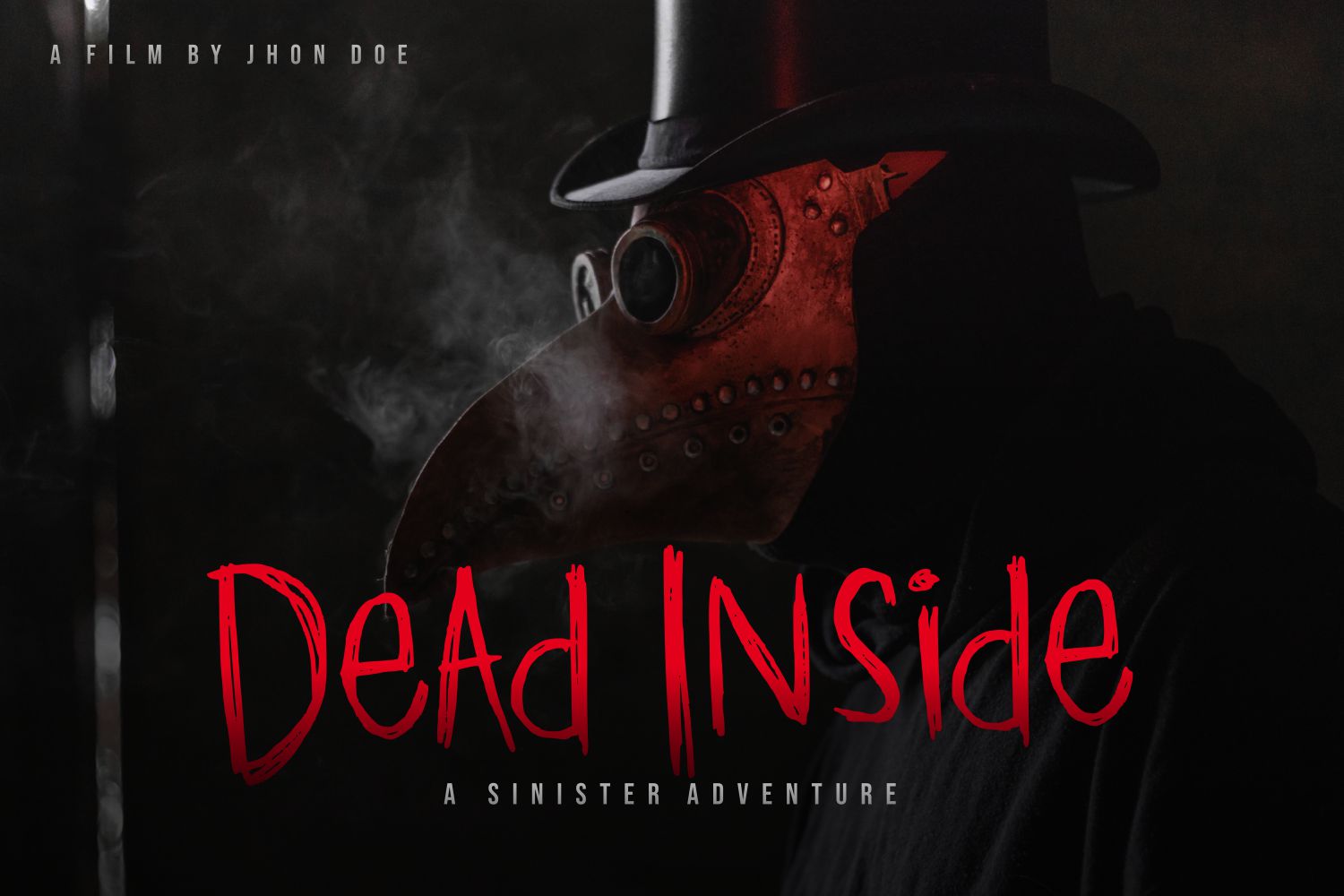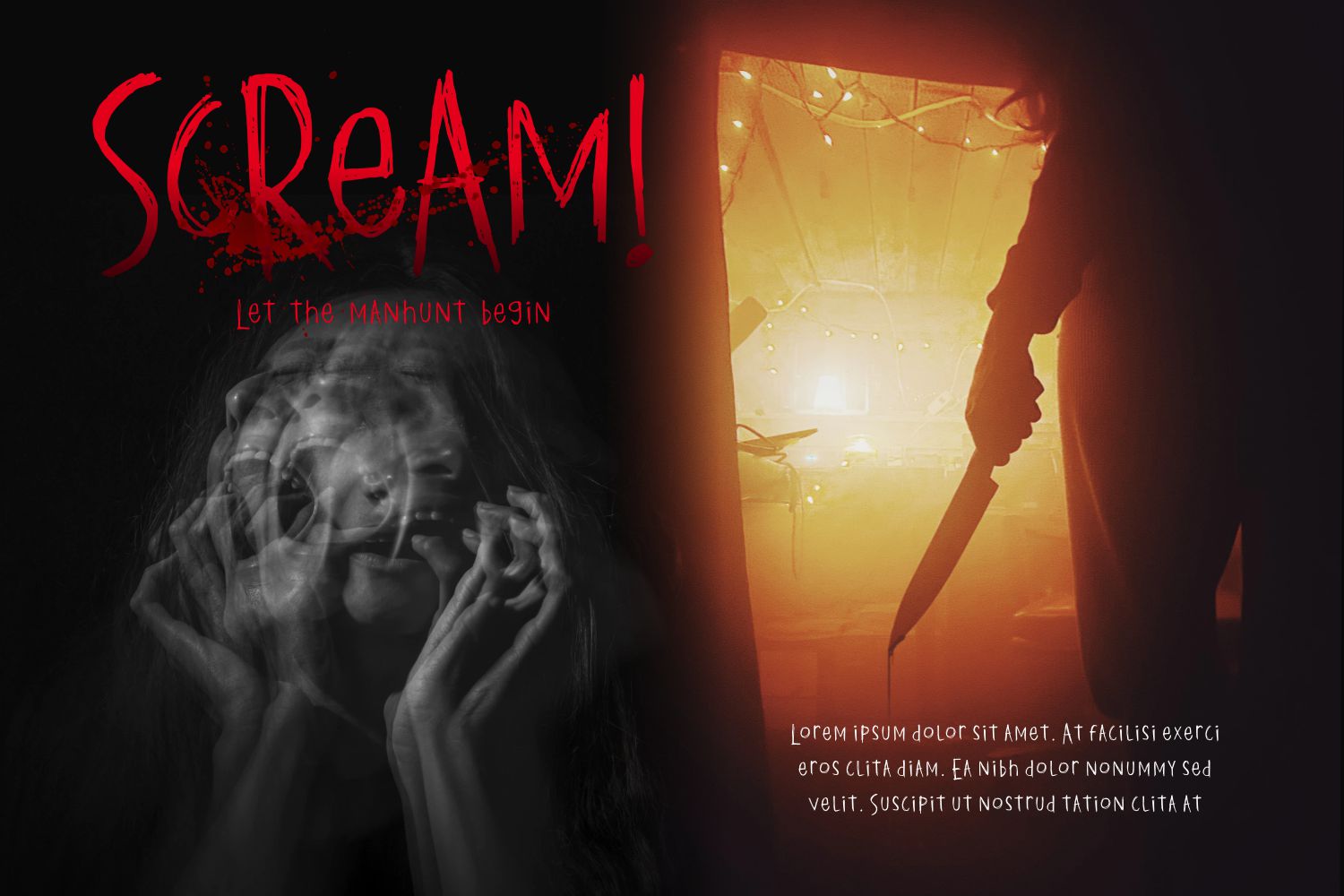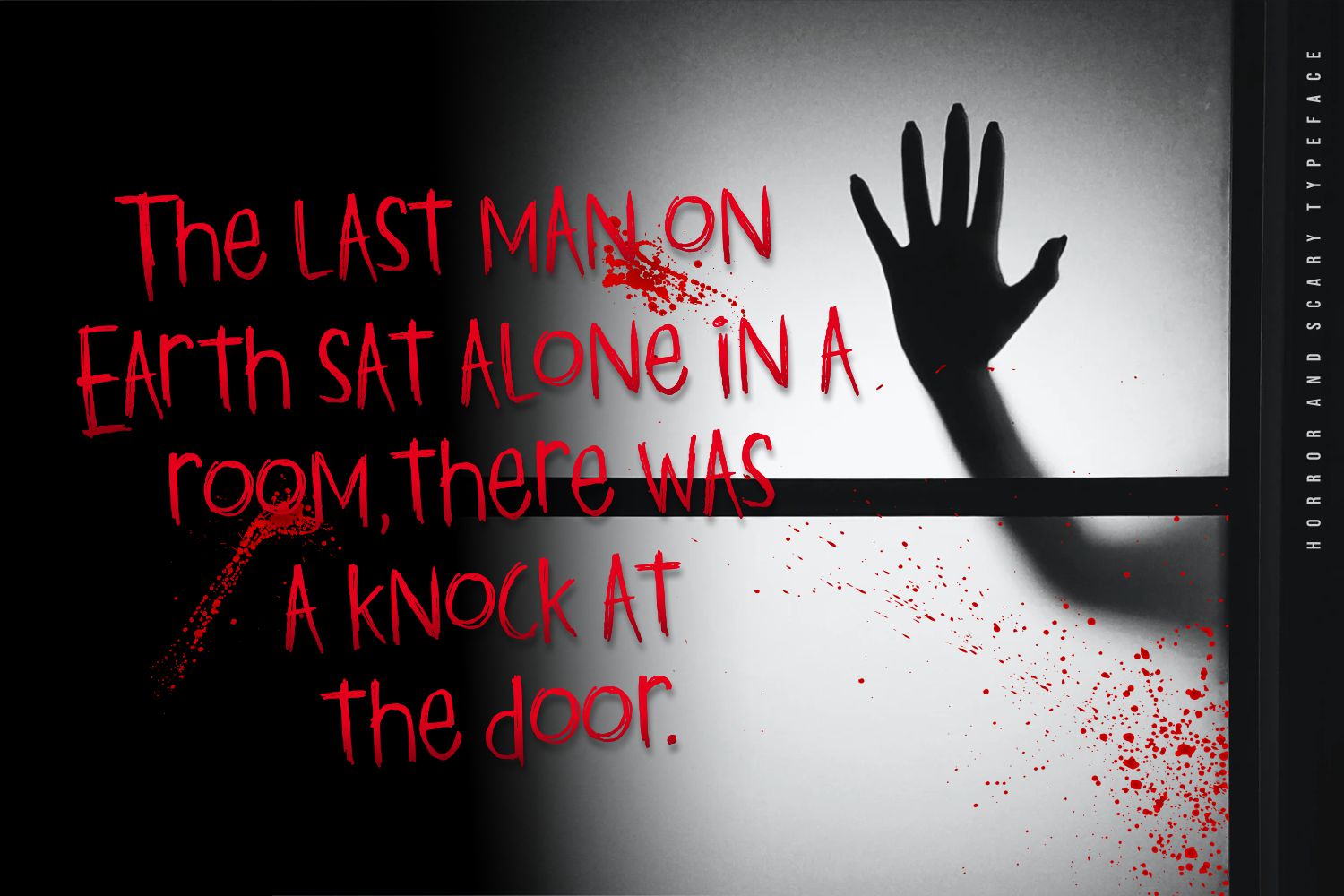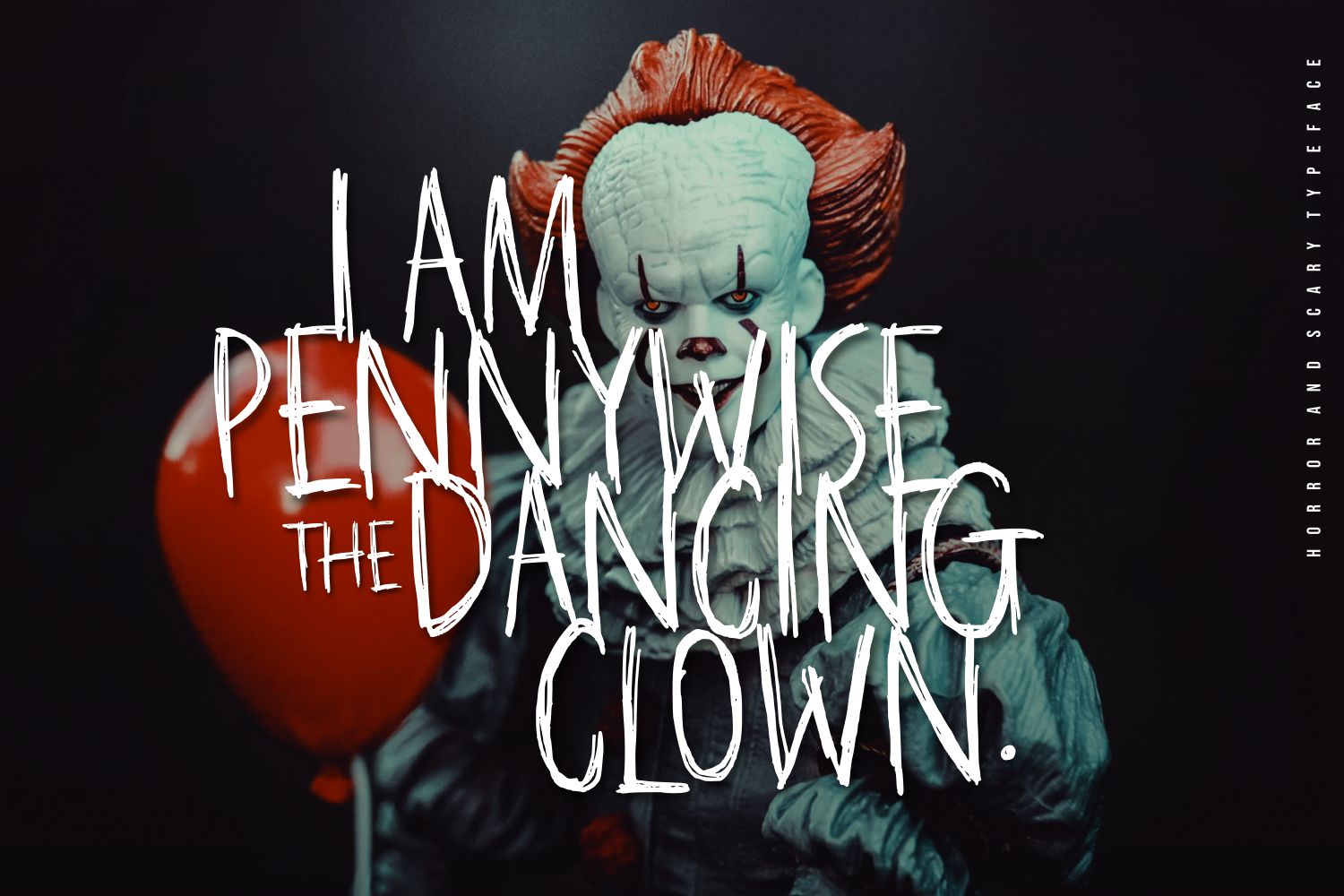
Deathridge Display Font
This is a cool, dramatic display font. This font is suitable for Halloween designs such as t-shirts, sportswear, logos, advertisements, clothing, and more.